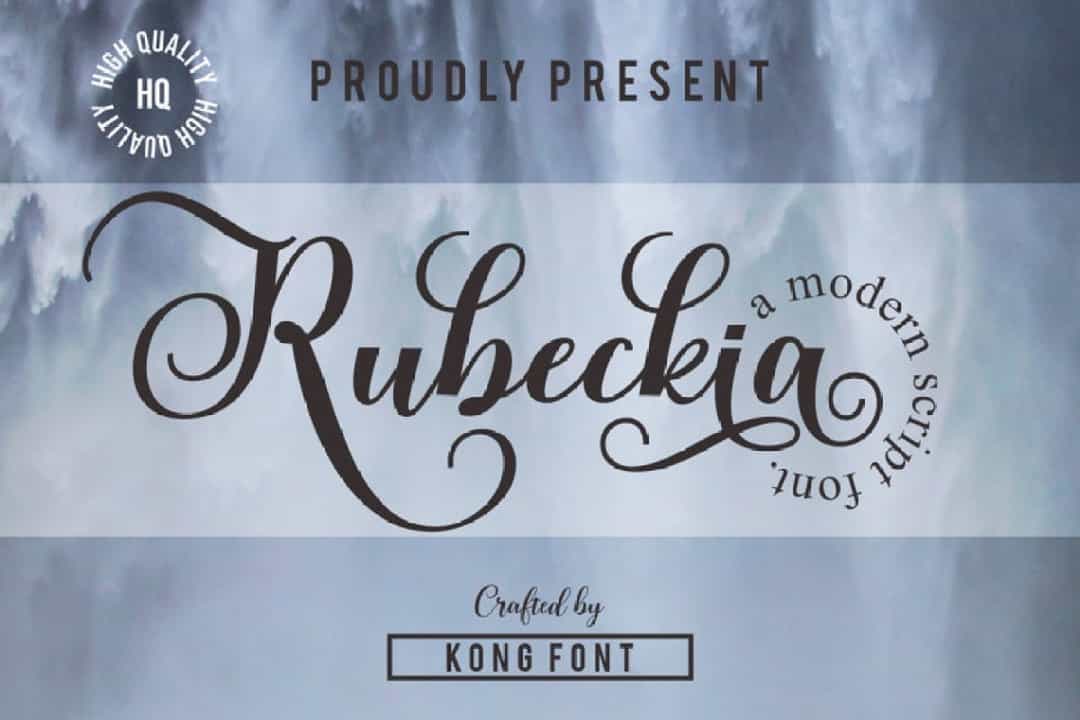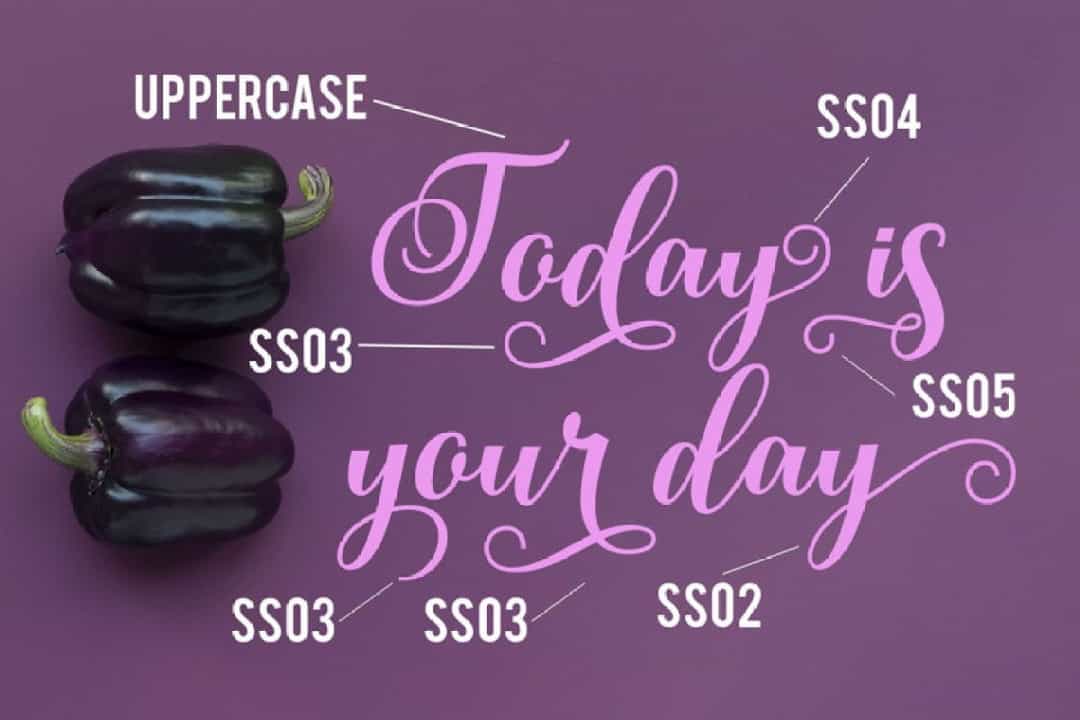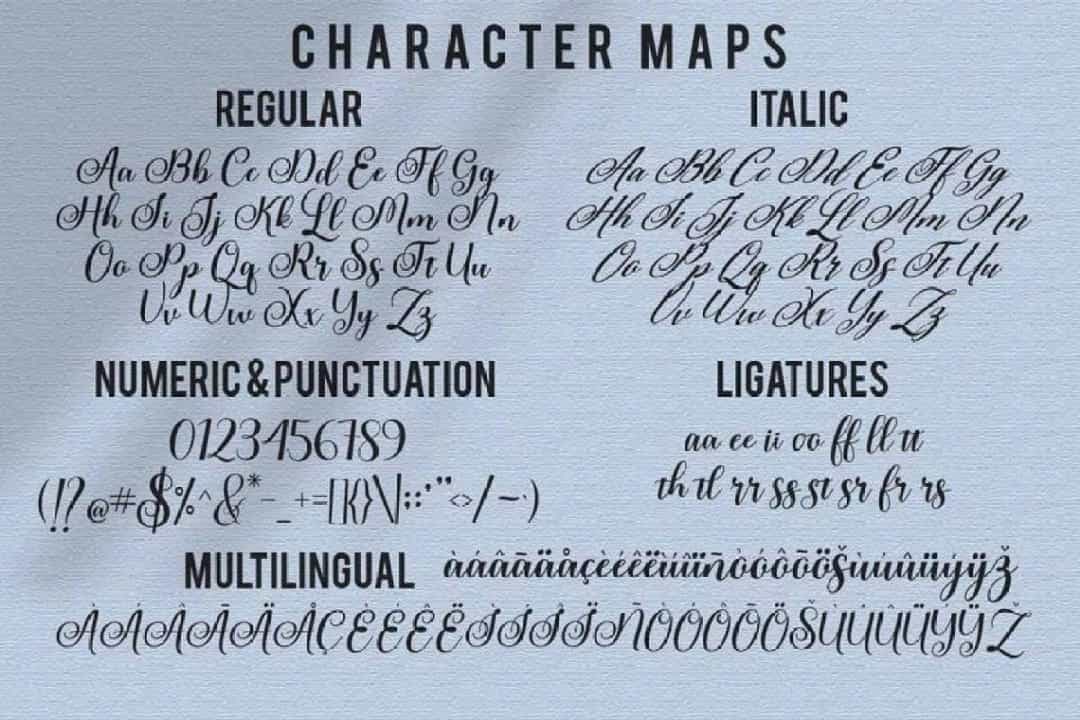
Rubeckia is a beautiful handwritten font with a flowing design characterized by curves and beautiful alternative letters by fontkong. Rapstomer also has the alternate letters as well as ligatures to enhance its effectiveness with the international support for most of the Western languages.